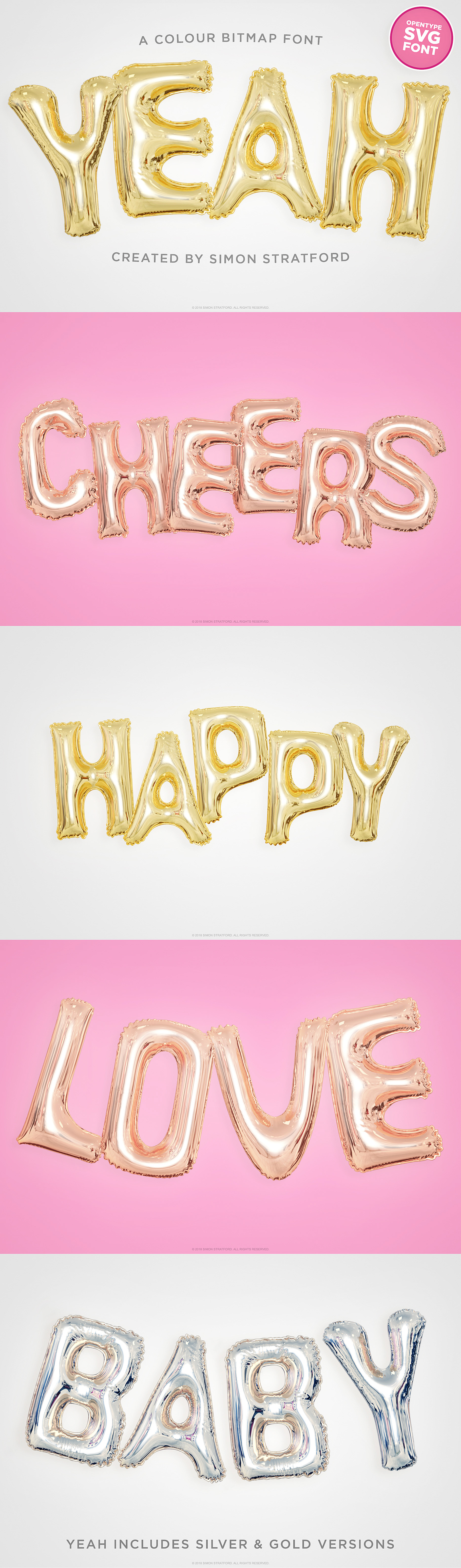
Display font Yeah foil balloon mylar
Yeah is a gold mylar foil balloon typeface. It's big, It's shiny, and it's high-energy pop kitsch at it's ironic best.
The best thing about Yeah font—it's full colour.
Full colour who thought that would ever be possible? It uses cutting-edge technology, otherwise known as OpenType-SVG to unlock a whole new world of colour. You can use it directly in Photoshop, Illustrator and other native OSx apps.
How I made Yeah
Each letter was modelled in 3d and made to look like a gold foil balloon or Mylar balloons; you know those balloons you have at parties and other celebrations.
Font Styles
The font has three styles—Gold, silver and black (traditional solid black vector font). But with a colour overlay in photoshop, you can tint the font to any shade, like Rose Gold—or the really really ridiculously cool Blue Steel.
Font Usage
The typeface would be perfect for birthday cards, baby showers, anniversaries, social messaging, weddings, Instagram posts, sale announcements and a whole manner of other things.
If the font were a celebrity, it would be more Katy Perry than Kenny Rogers—Cus Baby you're a firework!
Unicase font
The font is a unicase font, so it only contains uppercase characters. Yeah font also includes numbers, basic punctuation and some symbols. For a full list of letters, please check the last screenshot.